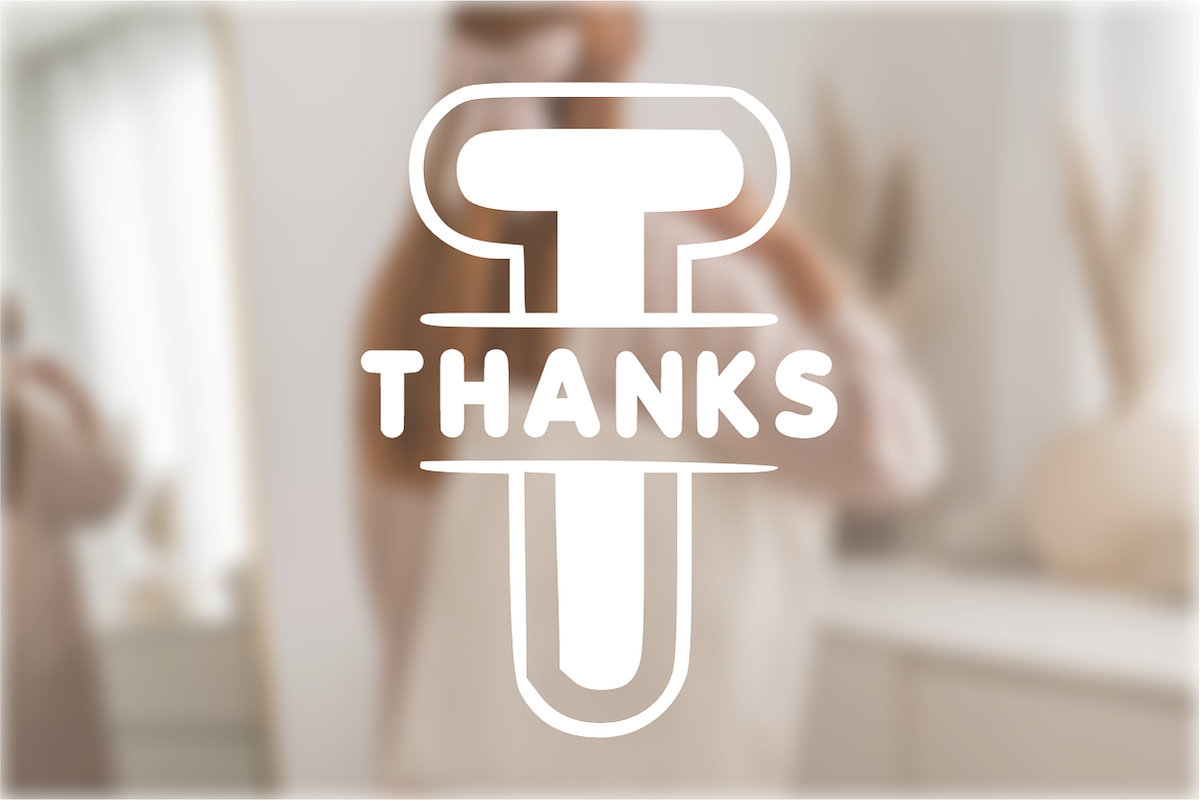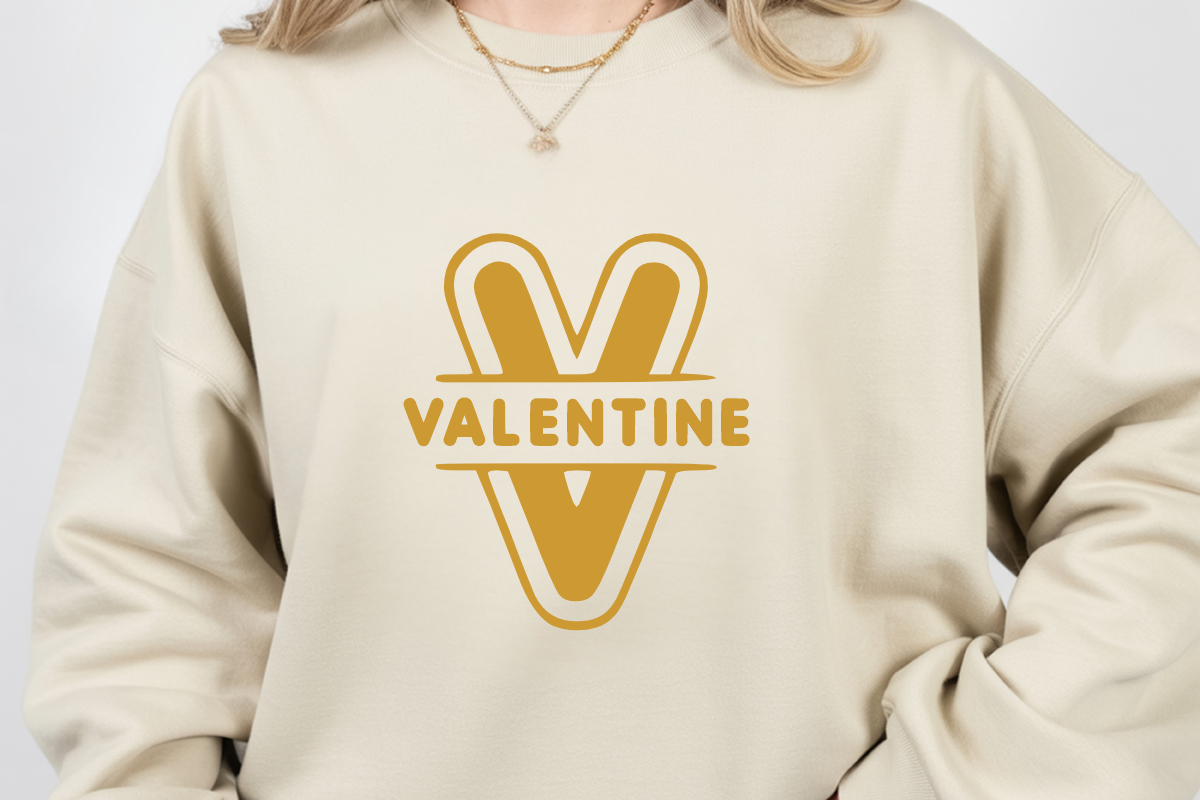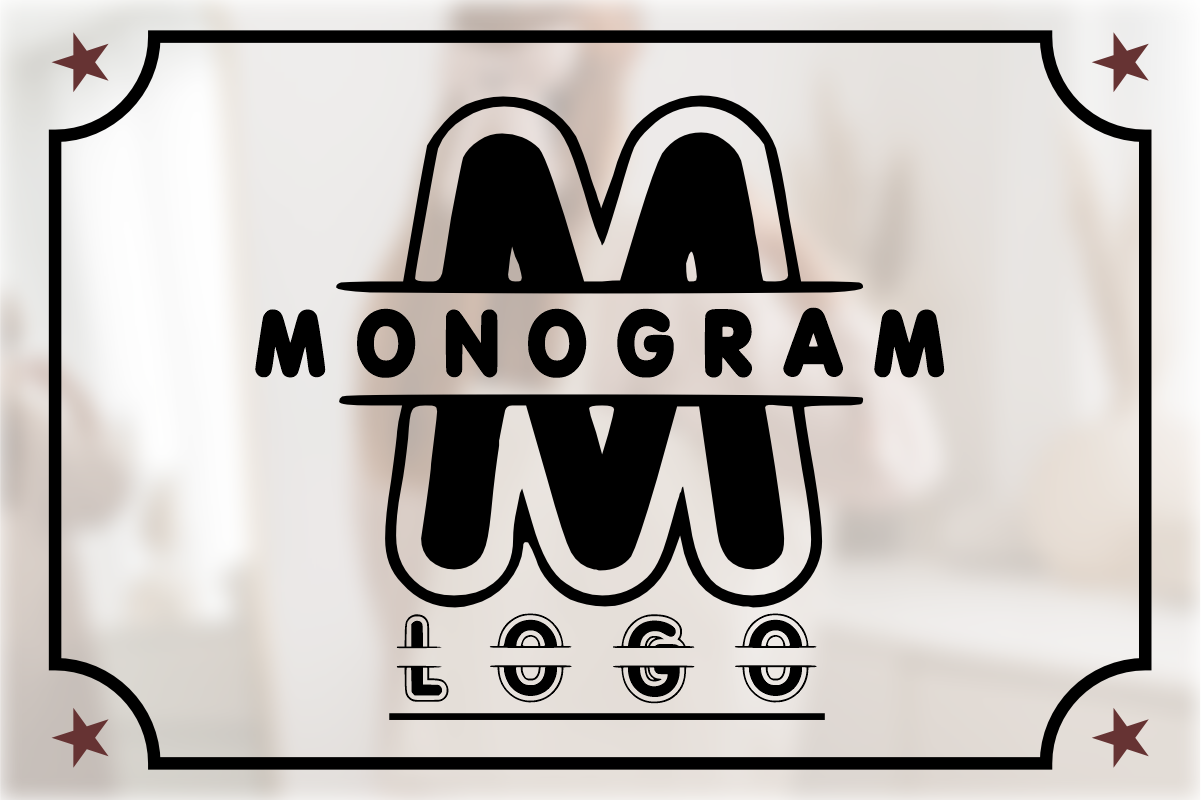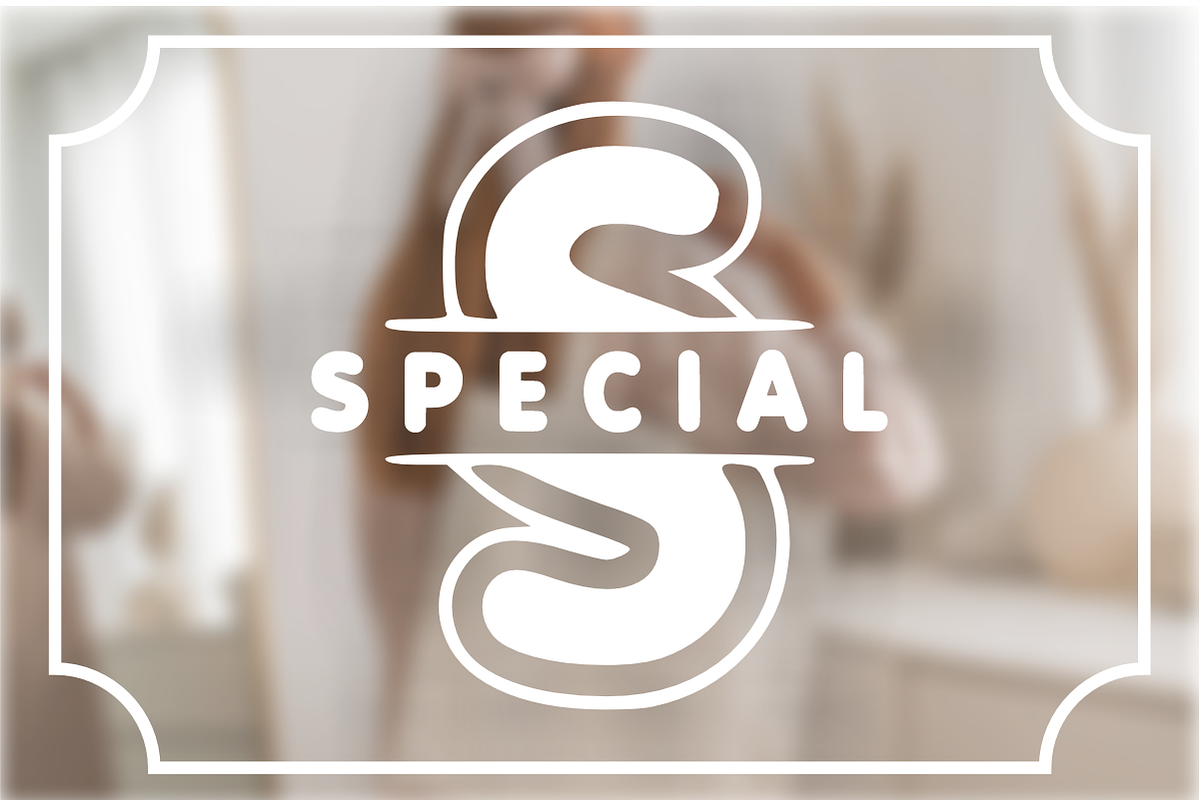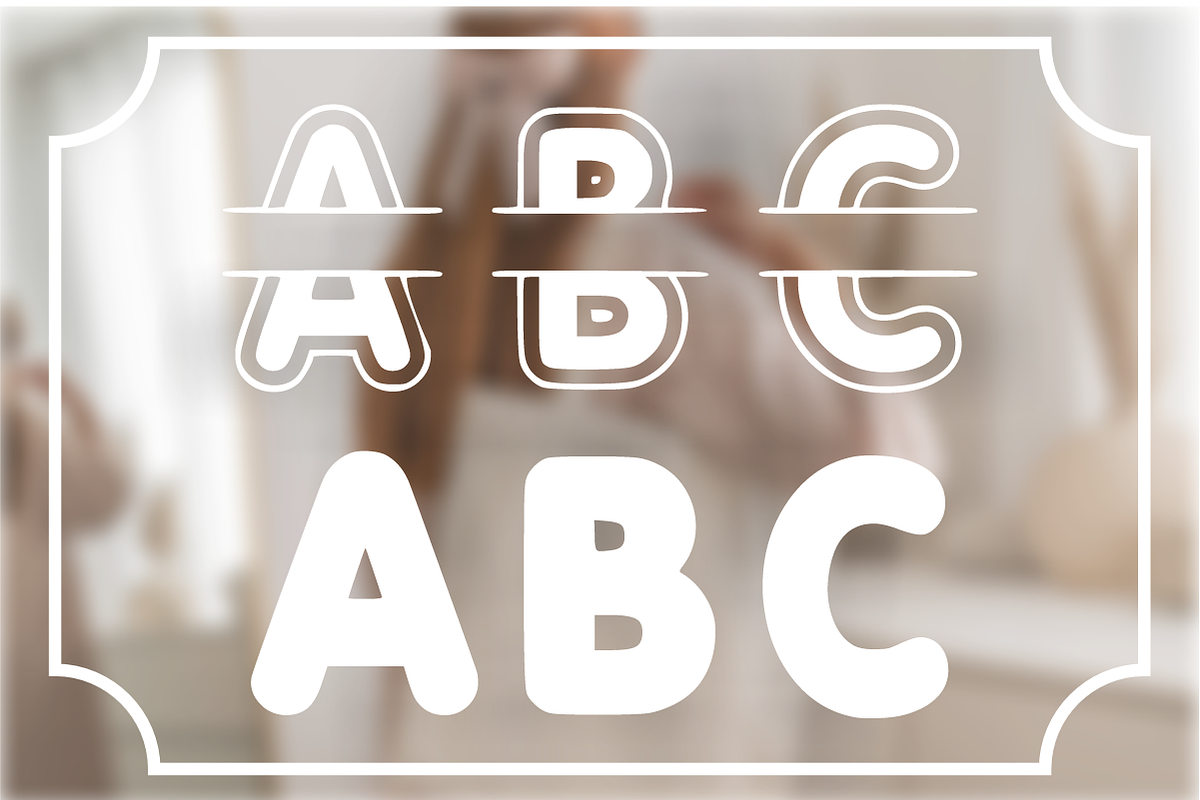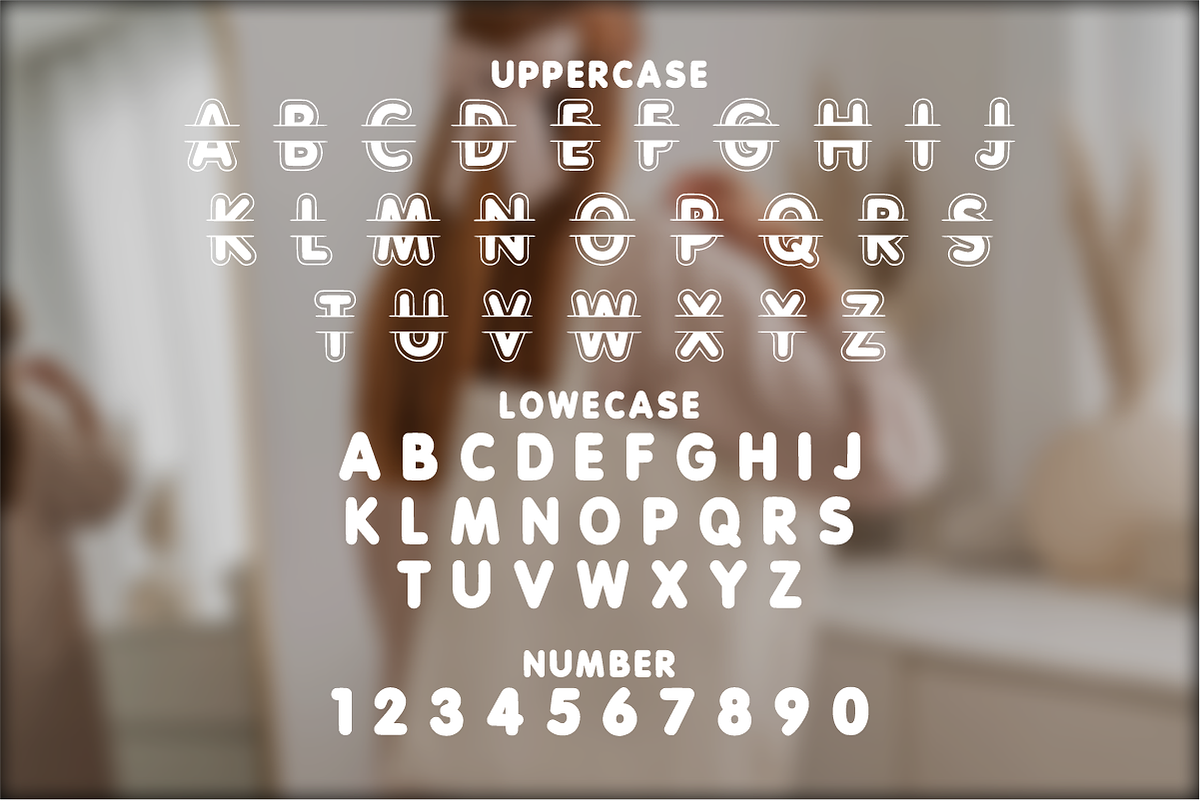
Monogram Logo -Monogram Font
✨ Hey Creative Friends! Meet Monogram Logo - The Ultimate Split Monogram Font! 💖
Ready to create beautiful, personalized designs in seconds? Monogram Logo is a premium display font featuring a classic split-middle design with clean, smooth rounded edges. It is specifically crafted to let you easily insert family names, business titles, or custom text right into the center of each bold initial!
It’s friendly, highly versatile, and perfectly optimized for crafters and designers who want to create high-end custom merchandise with a professional touch.
_ 🔠 _\Split Uppercase Monograms (A-Z)\\* – Beautifully pre-split letters ready for your custom text.
_ 🔢 _\Matching Numbers (0-9)\\* – Perfect for milestone years, anniversaries, or established dates.
_ 🔣 _\Simple Symbols & Punctuation\\* – Essential basics to round up your layout beautifully.